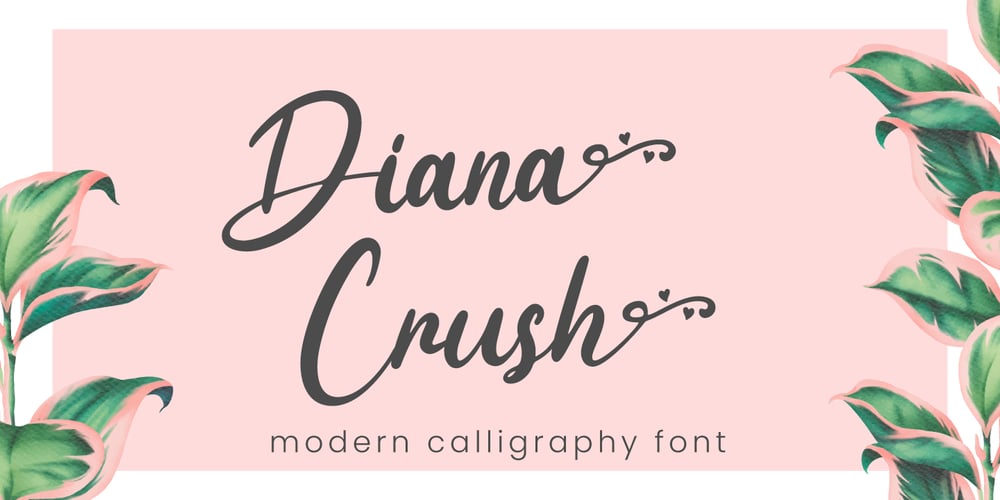
Diana Crush Font Family was designed by Fadli Ramadhan Iskandar and published by Attype Studio. Diana Crush contains 1 styles and family package options. Diana Crush is a delicate lovely font with 2 stylistic set. Fall in love with its incredibly versatile style and use it to create spectacular designs!Diana Crush is perfect for branding, logo, invitation, stationery, social media post, product packaging, merchandise, blog design, game titles, cute style design, Book/Cover Title and more.What’s Included :- Multilingual Support – Made it into separated file to make it easier to use by beginner & separated file user can use the font with software which doesn’t accept open type features.